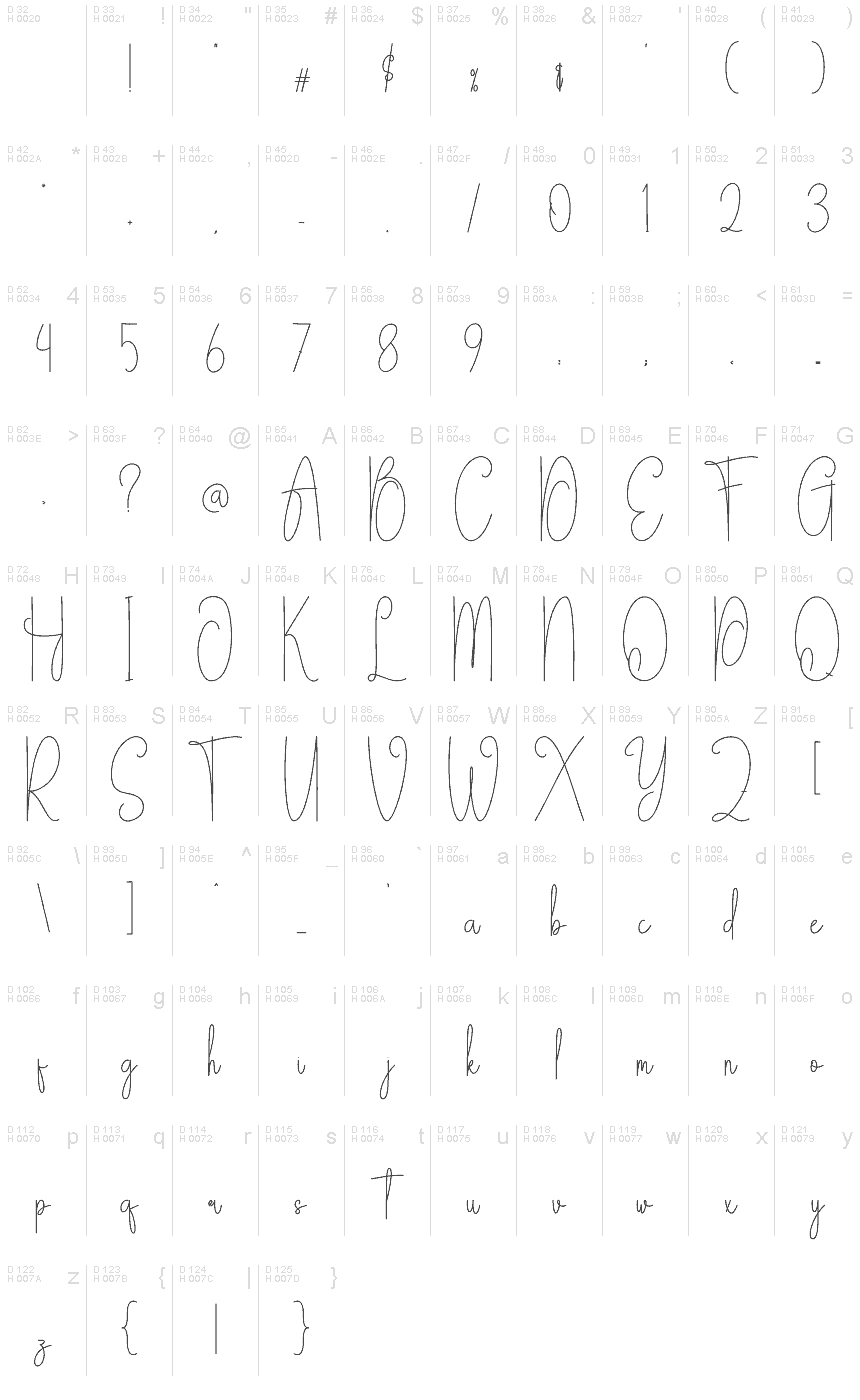
Sunlightmorning
Sunlightmorning font by Andi Moz is a light handwritten font with a script-like outlook and intricate visual appeal. The letters are delicately structured, giving the look a casual elegance suitable for both digital and print projects. Its continuity captures an artistic handwritten essence, providing it with enough flexibility to adapt to multiple design contexts.